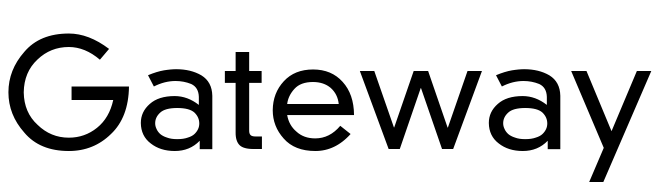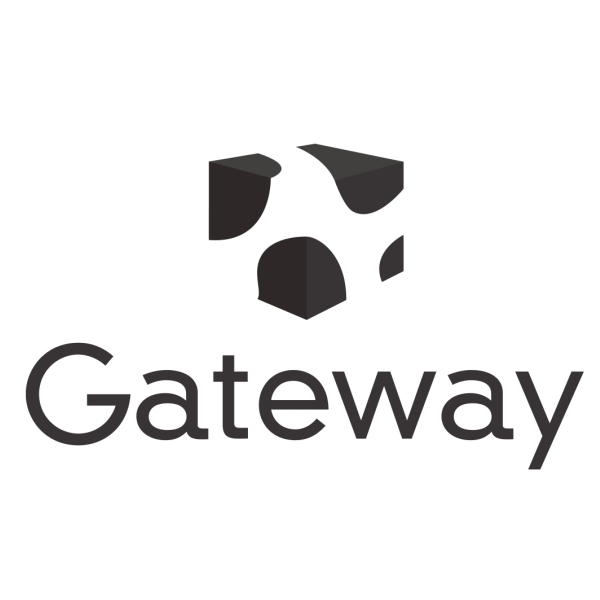
Gateway Font
ElectronicsGateway is a computer hardware and electronics company founded in 1985, known for its signature cow-spotted boxes and its role as a major player in the early PC market.
The logo used by Gateway since 2003 was likely created based on Din Neuzeit Grotesk Light, with slight modifications to the "G" and "a". You can view and purchase the font here.